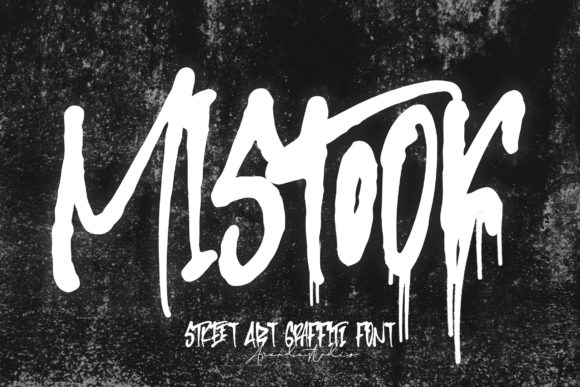
Welcome to the world of Mistook Font, a mesmerizing display font crafted by Arendxstudio, designed to elevate your digital creations with utmost elegance and charisma. Immerse yourself in the captivating beauty of Mistook, a font that exudes a touch of sophistication and charm, making it an ideal choice for those seeking to add a unique and captivating touch to their designs.
With Mistook Font, you unlock a gateway to a realm of creative possibilities, transforming your posters, thank you cards, quotes, greeting cards, logos, business cards, and countless other designs into masterpieces that resonate with your audience. Let Mistook's graceful curves and alluring strokes ignite your imagination and propel your designs to new heights of visual splendor.
Imagine the allure of your posters, the heartfelt warmth of your thank-you cards, the profound impact of your quotes, and the sheer brilliance of your greeting cards, all adorned with the captivating elegance of Mistook Font. Step into the world of Mistook, where your designs transcend the ordinary and blossom into works of art, leaving an indelible mark on the hearts and minds of your audience.
Mistook Font is not just a font; it's an expression of your individuality, a reflection of your unique style. It's the perfect companion for those seeking to make a statement, to stand out from the crowd, and to leave a lasting impression. Whether you're a seasoned designer or just starting your creative journey, Mistook Font is your key to unlocking a world of limitless possibilities, empowering you to transform your designs into captivating visual experiences.